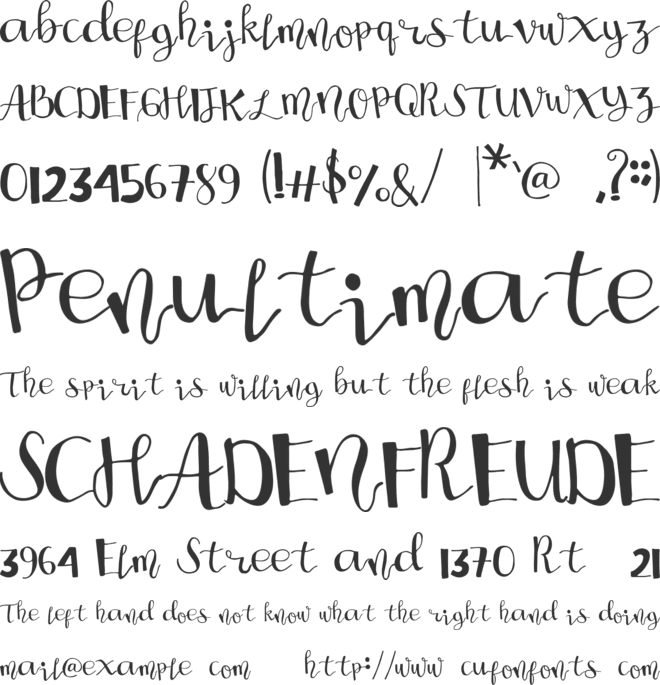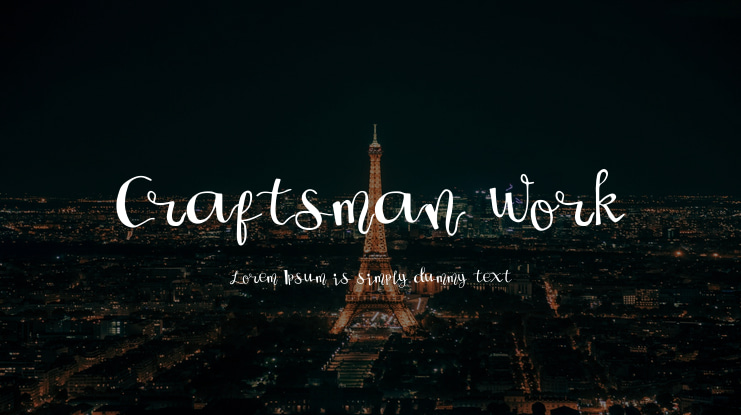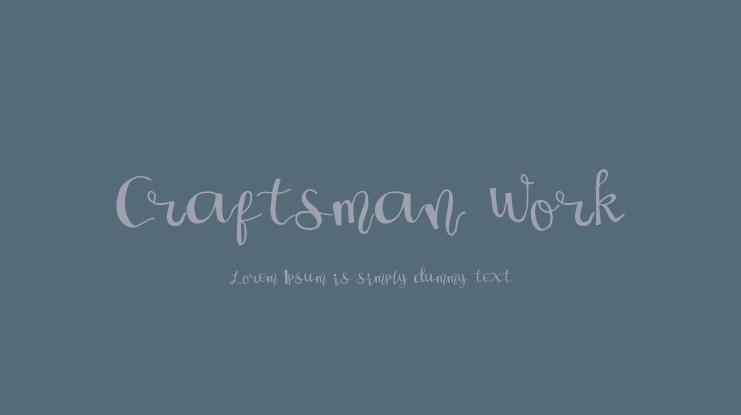
Craftsman Work Font
Craftsman Work is a neatly design handwritten font, designate to be as realistic as possible to give an authentic handwritten aesthetic.
Craftsman Work Font best uses for cover, invitations, greeting cards, wedding design, branding, logotype, advertisements and many more. Be authentic with Craftsman Work! NOTE: By installing or using this font, you are agree to the Product Usage Agreement: